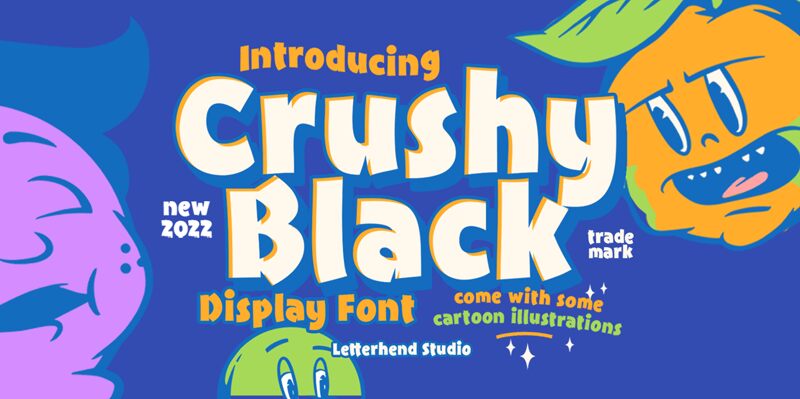
Crushy Black, designed by Letterhend Studio, is a vibrant and energetic display font that brings a playful touch to any project.
With its extra-bold weight and cartoon style, this font is perfect for children's book covers, animated movie posters, and toy packaging designs. Its quirky charm can also be used in comic strips, video game titles, and logo designs for entertainment companies. Whether you're aiming for fun and lightheartedness or looking to add a touch of whimsy to your branding, Crushy Black will surely make your project stand out with its bold personality.